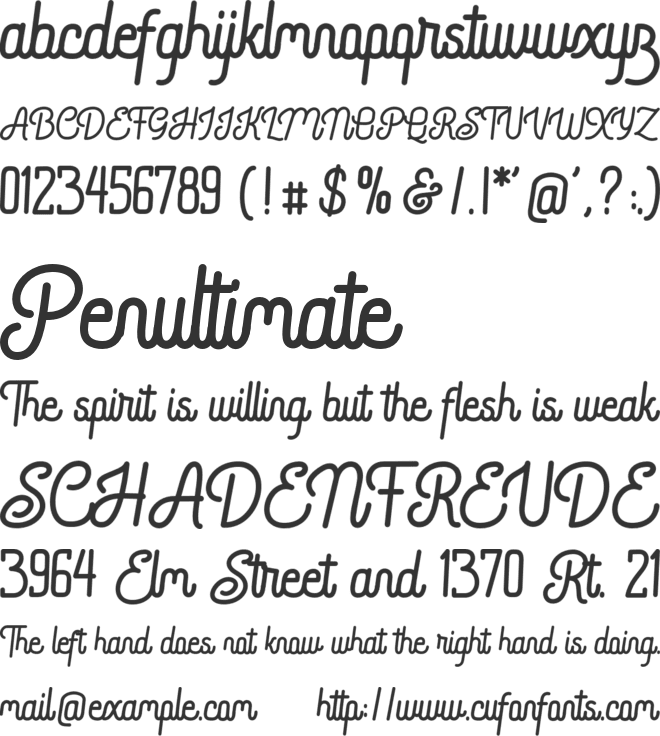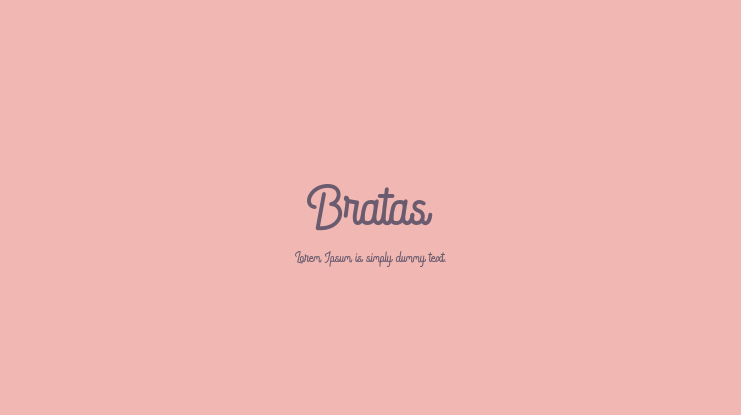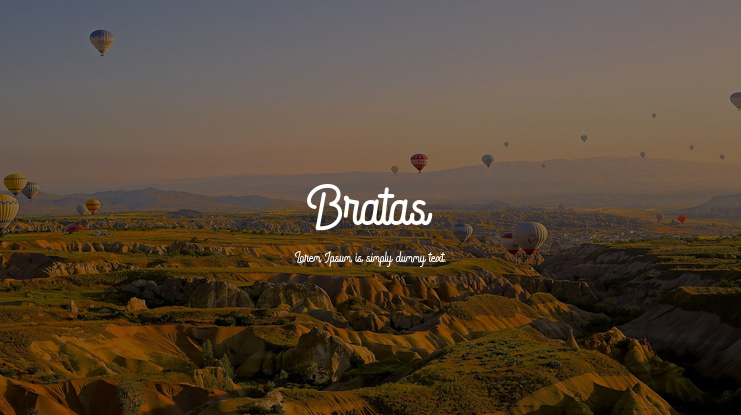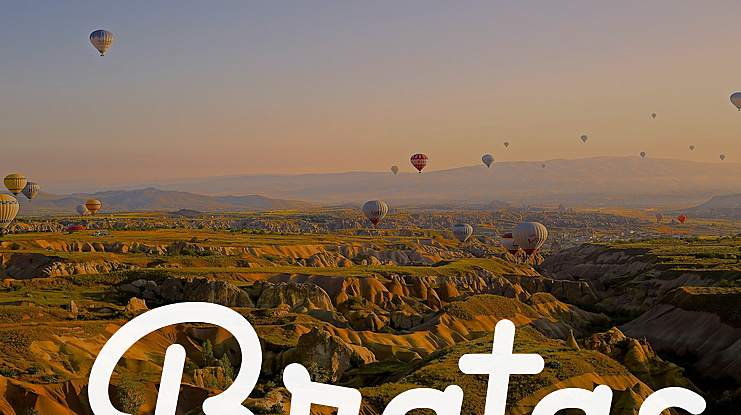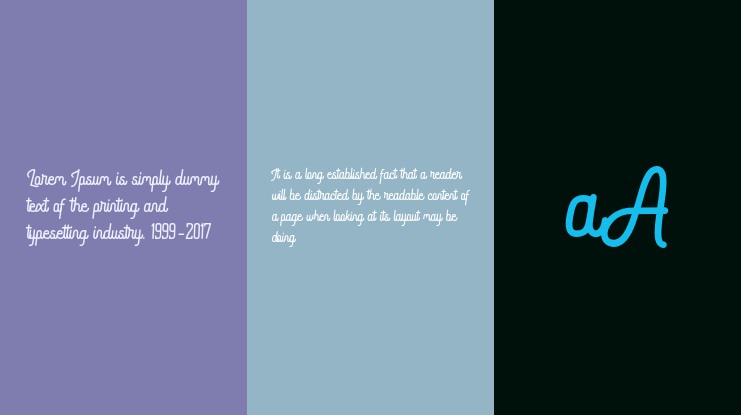
This Font is a very neat monoline typeface. Inspired by retro posters from the 80s, old-school neon lights, and modern vintage designs.
Bratas is a versatile font that you can use for any style like funky, retro, techno, modern, minimalistic and more! Equipped with a straight swash to give it a more elegant look and many alternative characters that allow you to create brilliant typographic combinations.